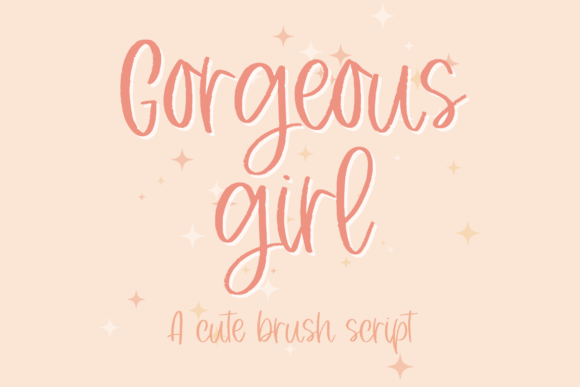
Gorgeous Girl Font: The Sweet and Adorable Handwritten Font for Designers and Crafters
Are you looking for a font that can add a touch of sweetness and adorability to your designs? Look no further than the Gorgeous Girl font! This cute brush script font is perfect for fun logos, greeting cards, t-shirt designs, stickers, social media, crafts, and much more. In this article, we’ll take a closer look at the Gorgeous Girl font and explore its features, benefits, and uses.
What is Gorgeous Girl Font?
Gorgeous Girl is a sweet and adorable handwritten font that is designed to bring a touch of fun and playfulness to your designs. This font is a type of brush script font, which means it has a unique, hand-painted look that is perfect for creating eye-catching and engaging designs. The font is highly legible and versatile, making it suitable for a wide range of design projects.
Features of Gorgeous Girl Font
The Gorgeous Girl font has several features that make it a great choice for designers and crafters. Some of its key features include:
- Handwritten look: The font has a unique, handwritten look that gives it a personal and friendly feel.
- Cute and adorable: The font is designed to be sweet and adorable, making it perfect for designs that require a touch of fun and playfulness.
- Highly legible: The font is highly legible, even at small sizes, making it suitable for a wide range of design projects.
- Versatile: The font is versatile and can be used for a variety of design projects, including logos, greeting cards, t-shirt designs, stickers, and more.
Uses of Gorgeous Girl Font
The Gorgeous Girl font is perfect for a wide range of design projects, including:
- Fun logos: The font is perfect for creating fun and playful logos for businesses, events, or personal projects.
- Greeting cards: The font is great for creating greeting cards for special occasions, such as birthdays, weddings, and holidays.
- T-shirt designs: The font is perfect for creating eye-catching t-shirt designs that are sure to turn heads.
- Stickers: The font is great for creating stickers for laptops, water bottles, or any other surface that needs a touch of fun and personality.
- Social media: The font is perfect for creating engaging social media graphics, such as Facebook posts, Instagram stories, and Twitter headers.
- Crafts: The font is great for crafters who want to add a personal touch to their projects, such as scrapbooking, journaling, or card making.
Benefits of Using Gorgeous Girl Font
There are several benefits to using the Gorgeous Girl font in your designs. Some of the benefits include:
- Unique look: The font has a unique look that will set your designs apart from others.
- Easy to read: The font is highly legible, making it easy for readers to understand your message.
- Versatile: The font is versatile and can be used for a wide range of design projects.
The Gorgeous Girl font is a sweet and adorable handwritten font that is perfect for designers and crafters who want to add a touch of fun and playfulness to their designs. With its unique look, high legibility, and versatility, this font is suitable for a wide range of design projects. Whether you’re creating fun logos, greeting cards, t-shirt designs, stickers, or social media graphics, the Gorgeous Girl font is a great choice. So why wait? Download the Gorgeous Girl font today and start creating your own amazing designs!